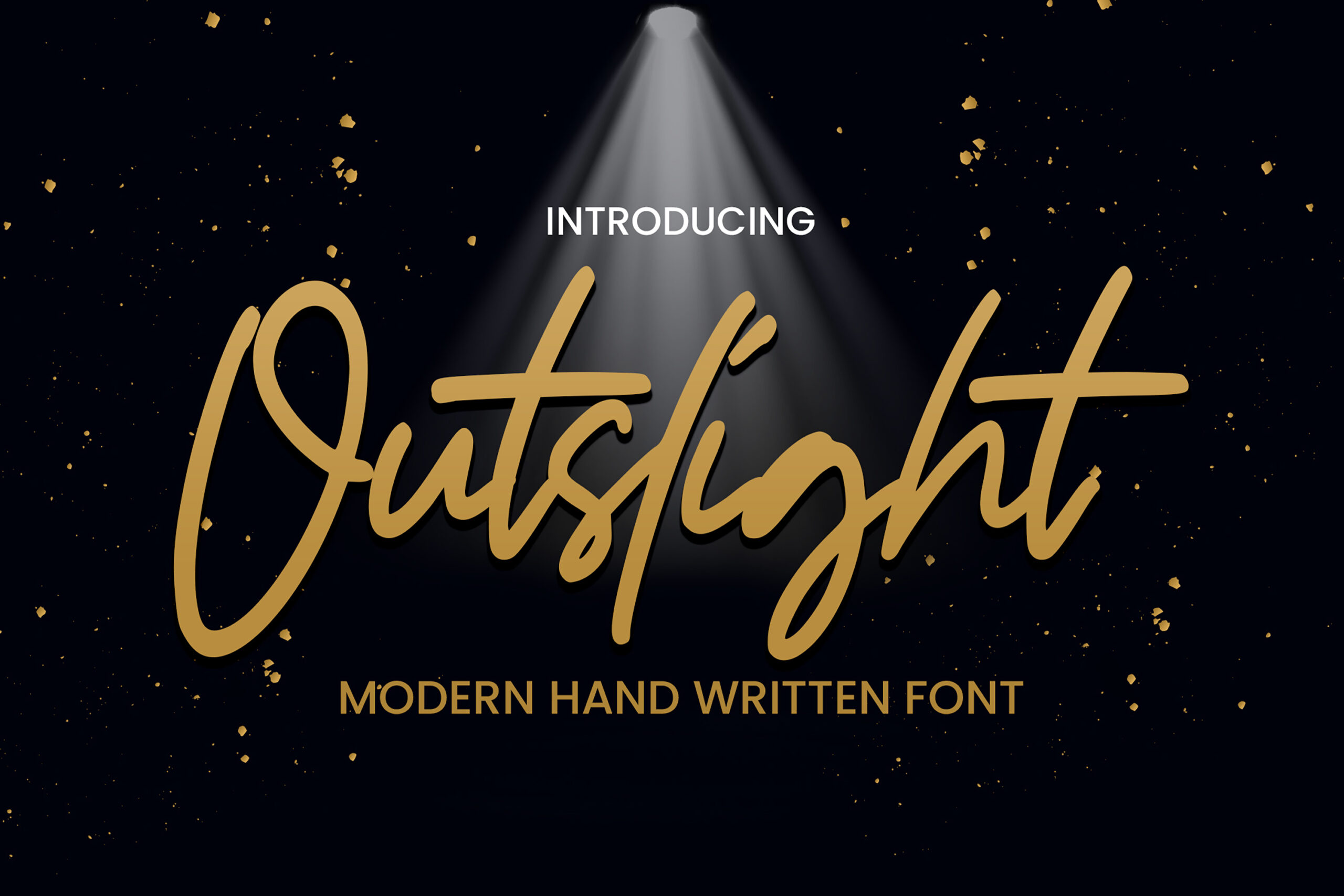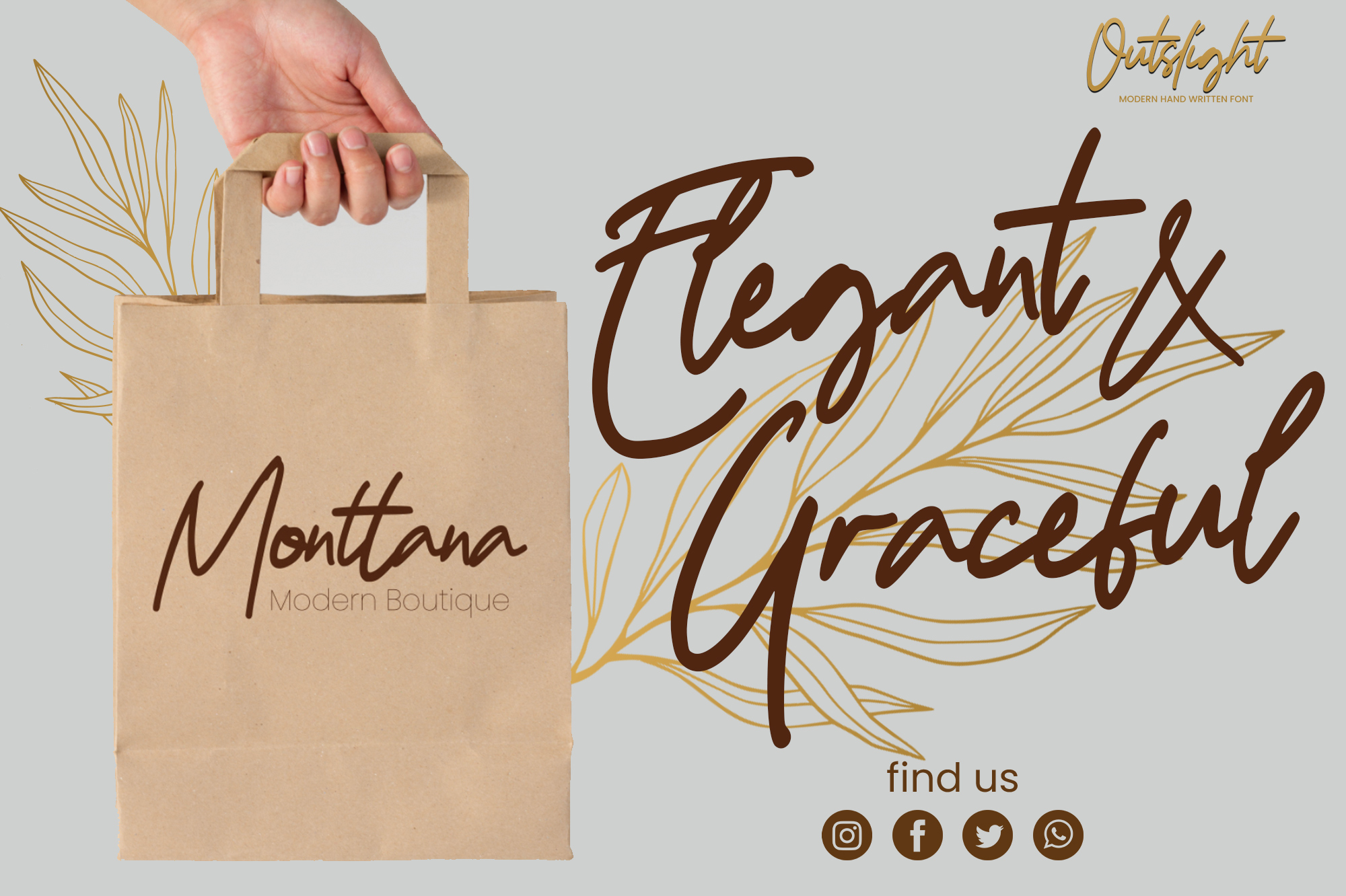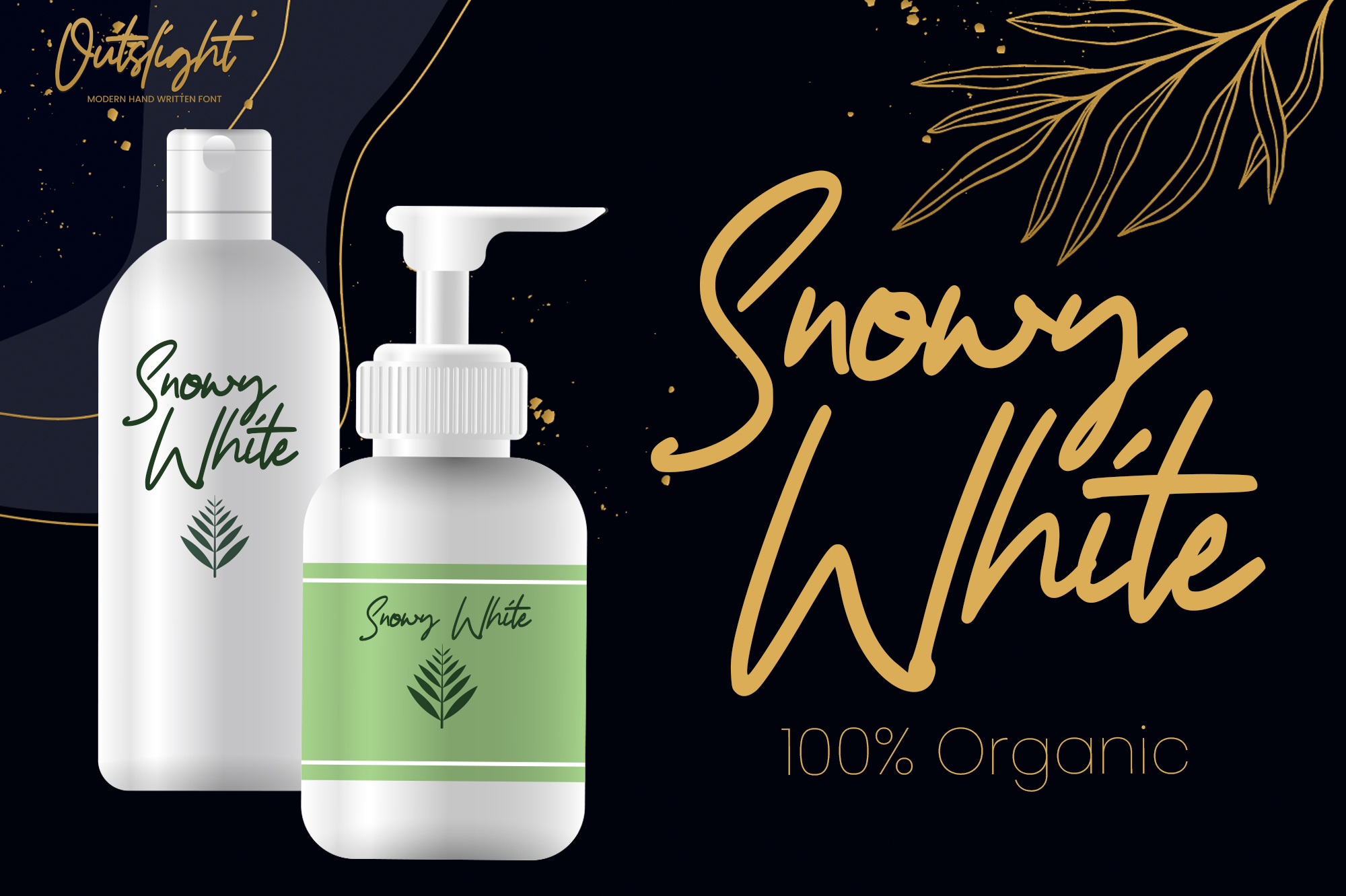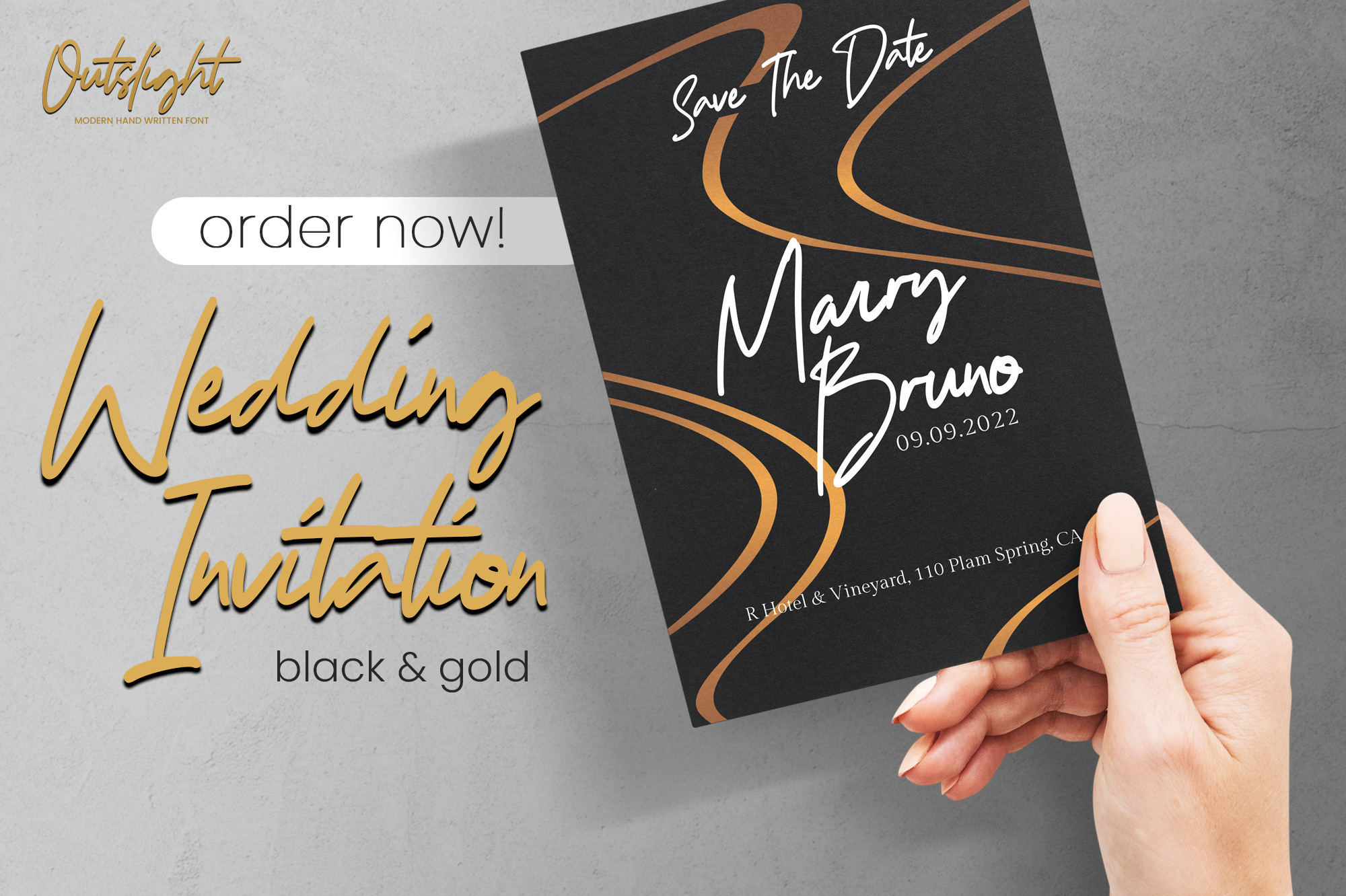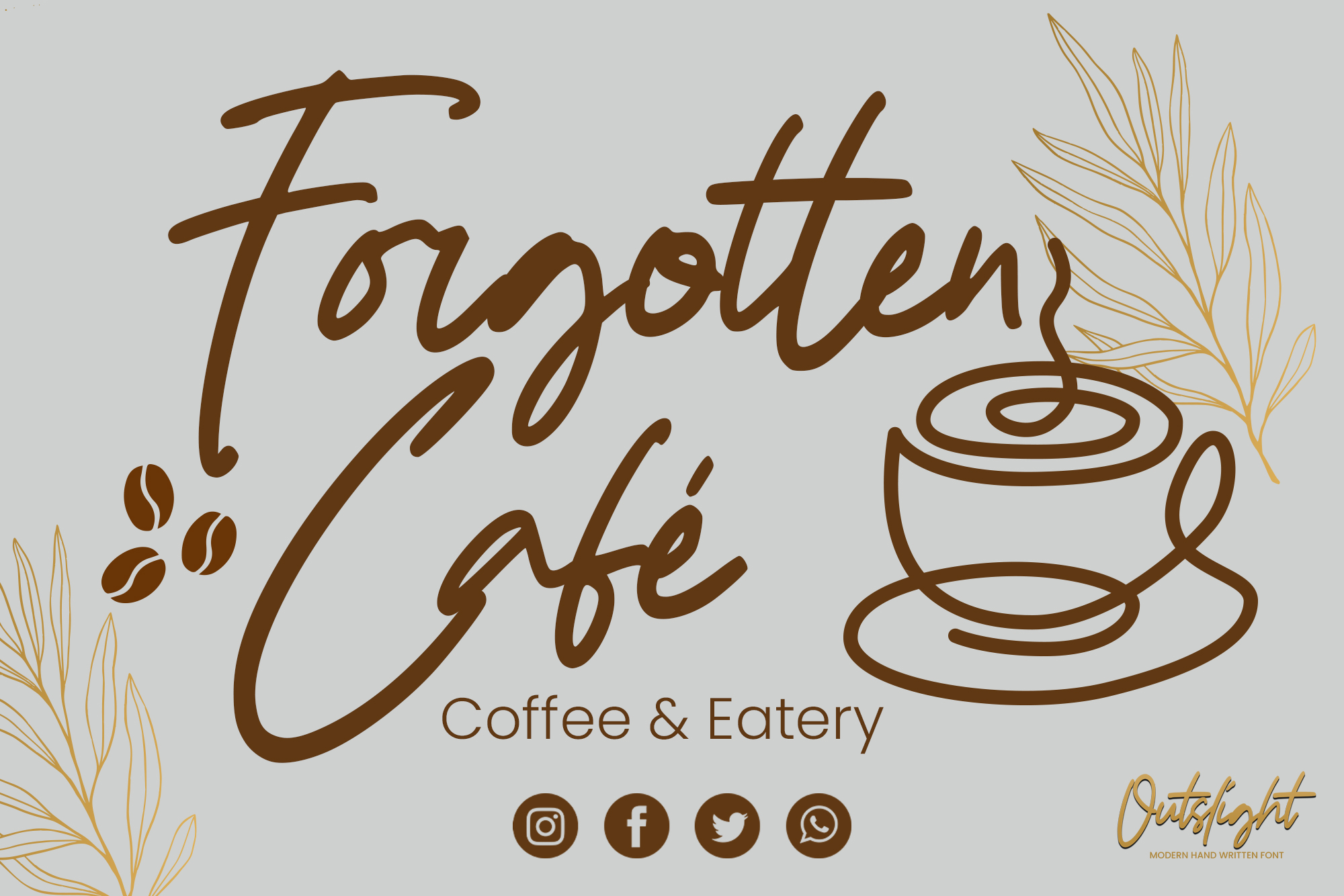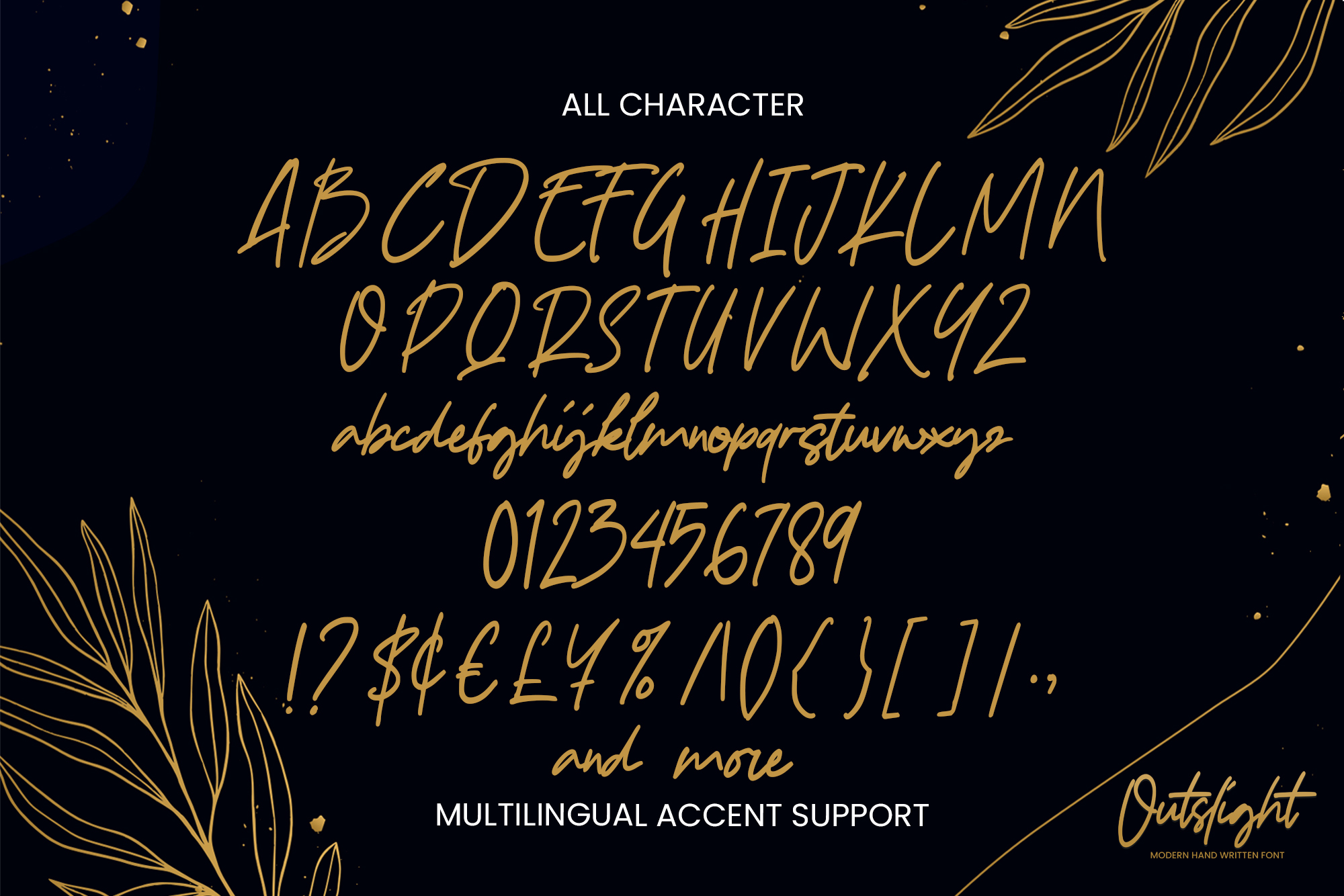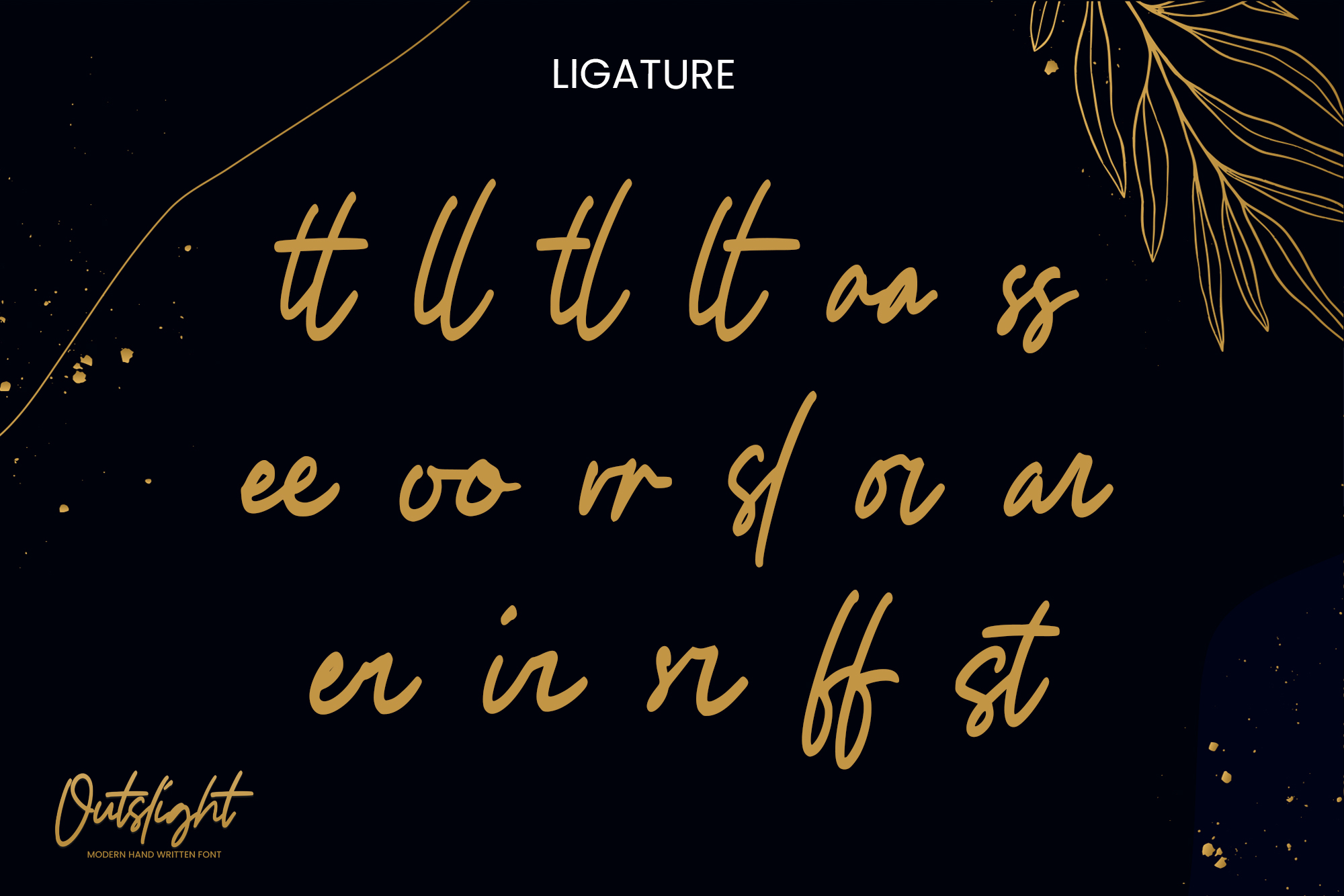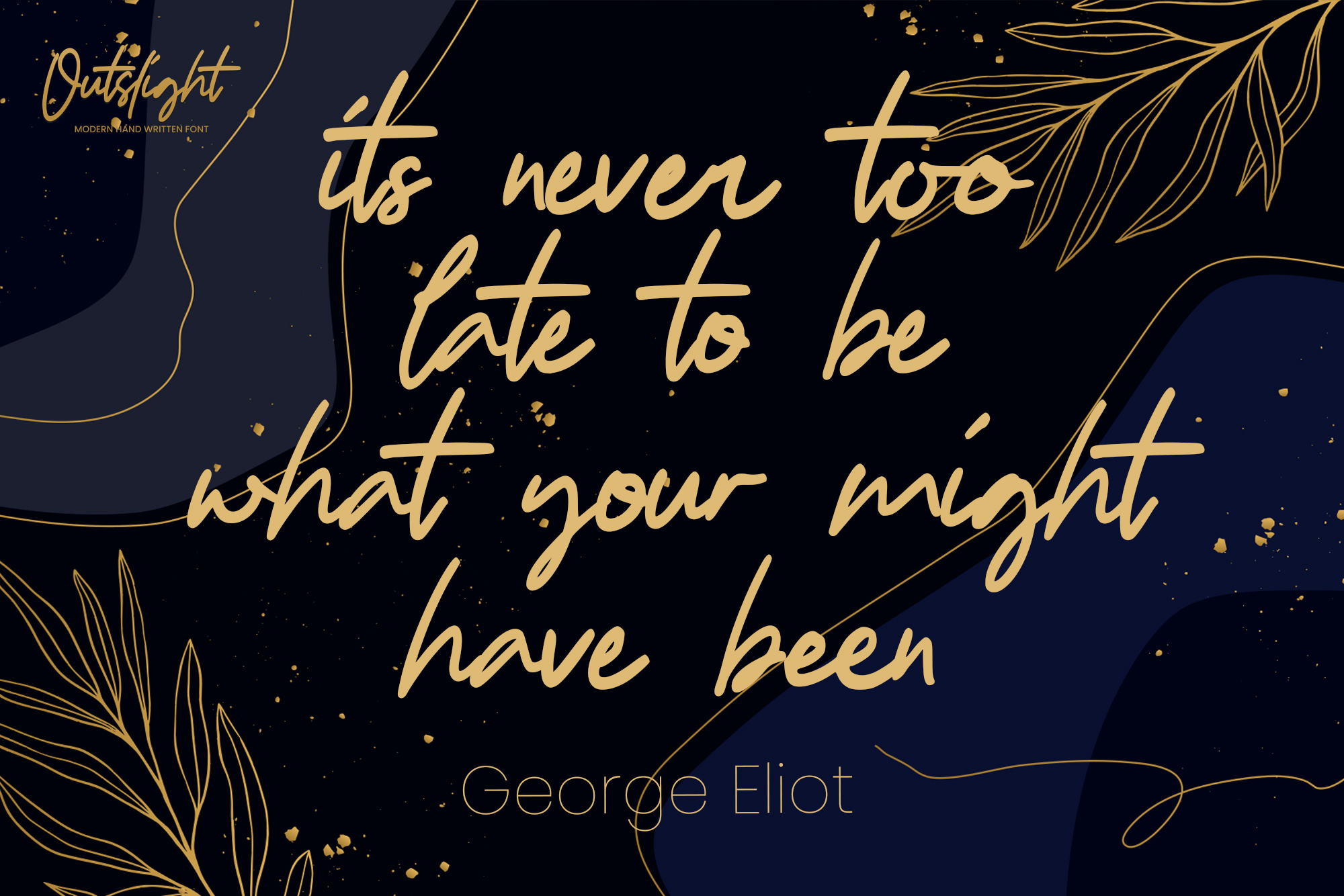
Outslight – Modern Hand Written Font , modern style and dramatic movement that is written casually and quickly.
The best for labels,poster,project , designs look modern, authentic and fun. It’s perfect for labels, quotes, posters, DIY projects, branding, packaging, greeting cards, websites, photography overlays, signs, scrapbooking, tags and so much more! That is why Outslight has a textured, and elegant characteristic more natural look. You can activate Ligatures glyphs OpenType panel.